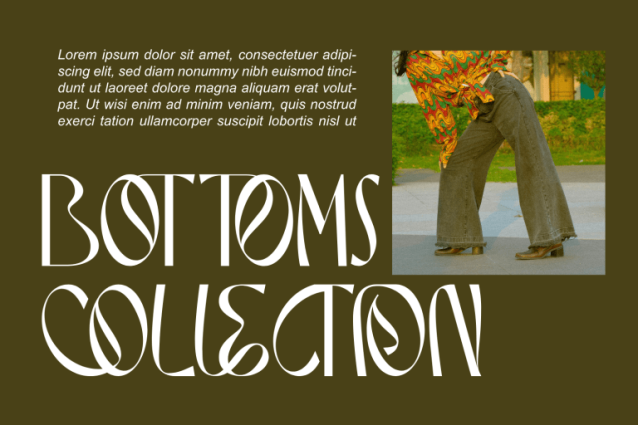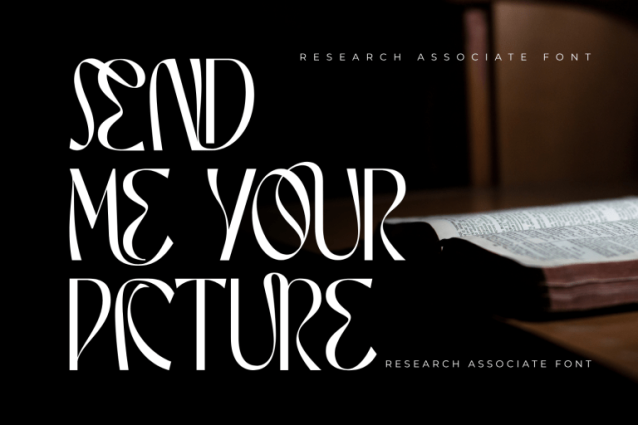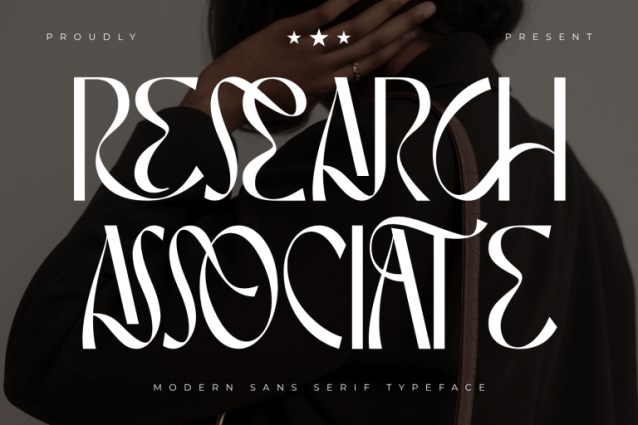
RESEARCH ASSOCIATE FONT
RESEARCH ASSOCIATE – LUXURY FONT Characterized by its dramatic high contrast and organic, liquid-like silhouettes, RESEARCH ASSOCIATE captures the essence of contemporary surrealism. Each character is a balance of sweeping, hypnotic curves and dangerously sharp terminals, creating a visual rhythm that is both sophisticated and edgy. Whether you are crafting a high-end fashion editorial, a bold branding identity, or a captivating poster, RESEARCH ASSOCIATE demands attention.
🔤Features:
Uppercase & Lowercase Letters
Around 100 Special Ligatures & Alternates
Accented Characters for multilingual support
🔤About 100 ligatures combined with Stylistic Alternates Font:
AC AD AL AN AR AS AT AU AV BE CA CE CH CO CT DE DI EA EC ED EE EL EM EN EP ER ES ET FE FO FR GE HA HE HI HO IE IC IL IN IO IR IS IT JU KE LA LE LI LL LO LY MA ME MI NC ND NE NG NO NT NS OC OF OM ON OO OP OR OT OU OW PA PR RA RD RE RI RO RS RT SE SH SI SO SS ST TA TE TH TI TO TR TT UM UN UR VE WI WO